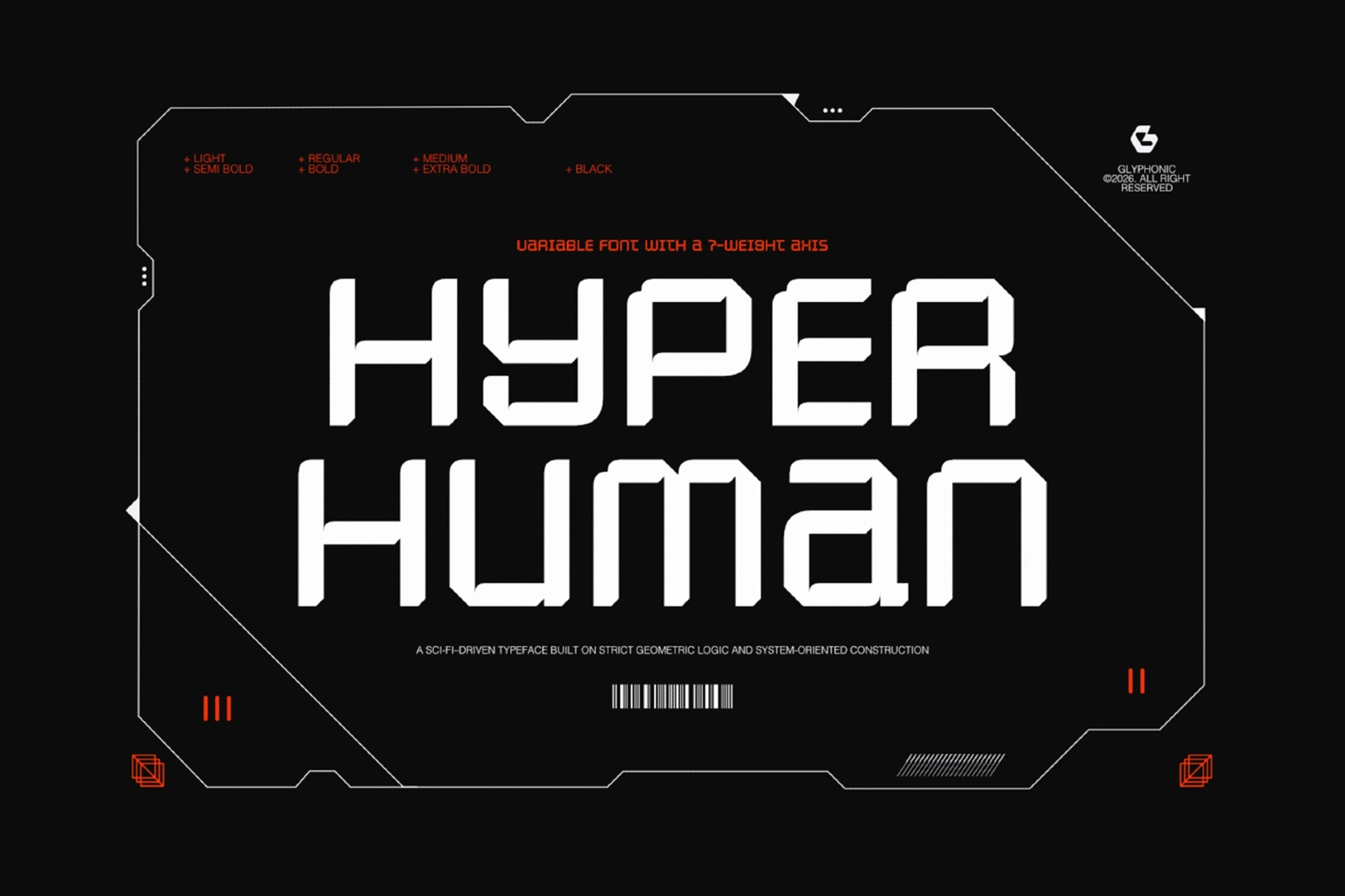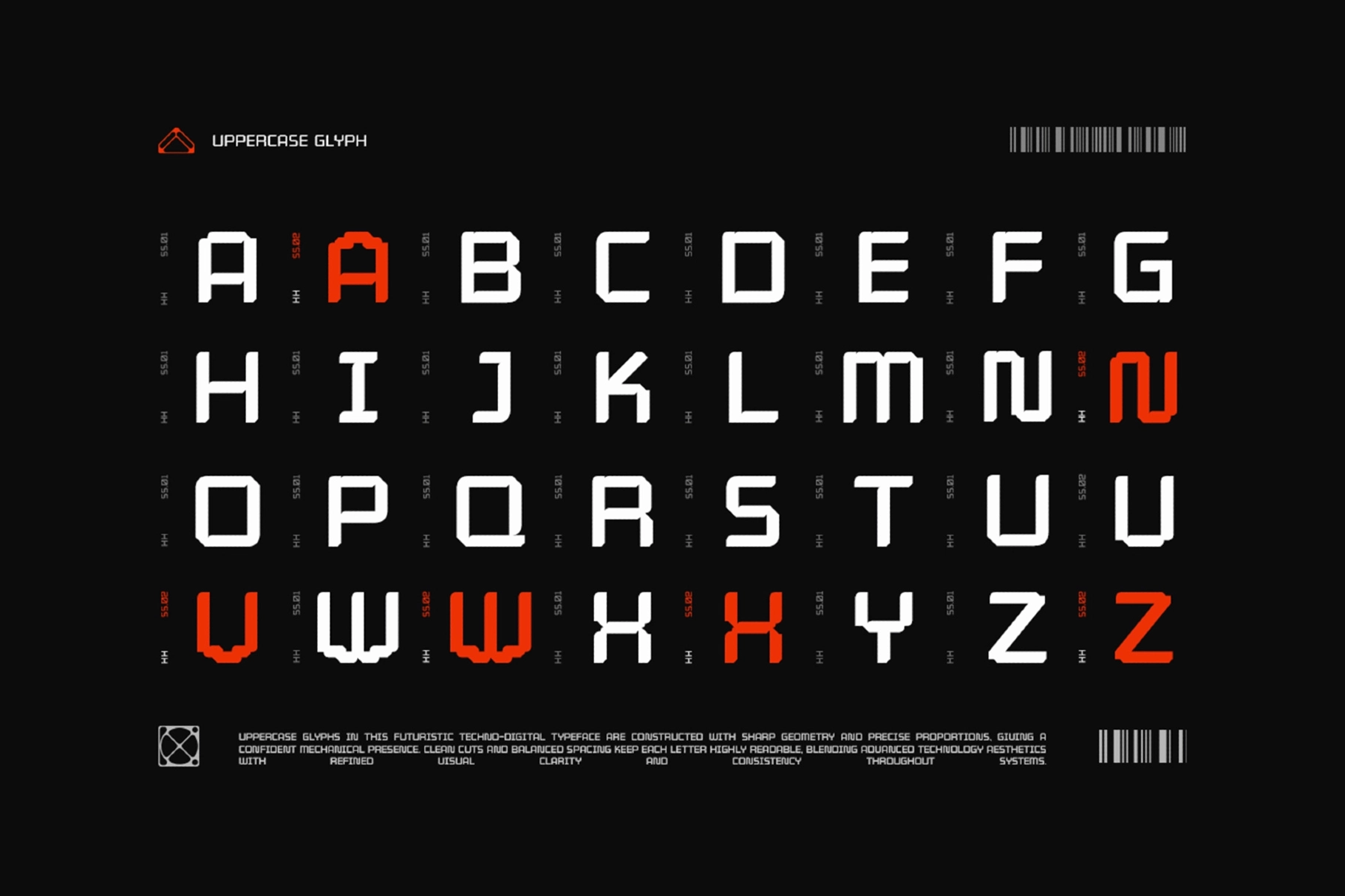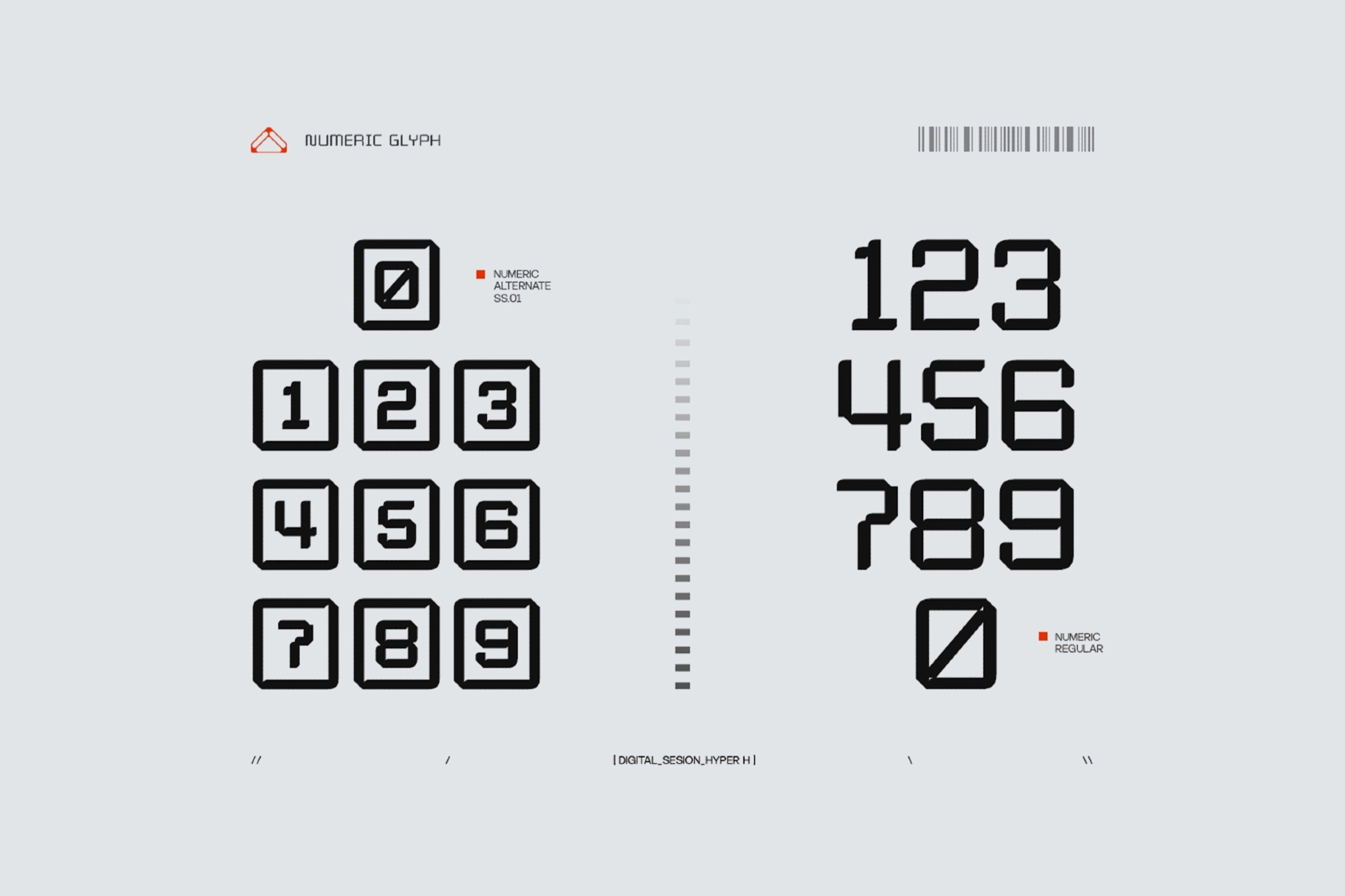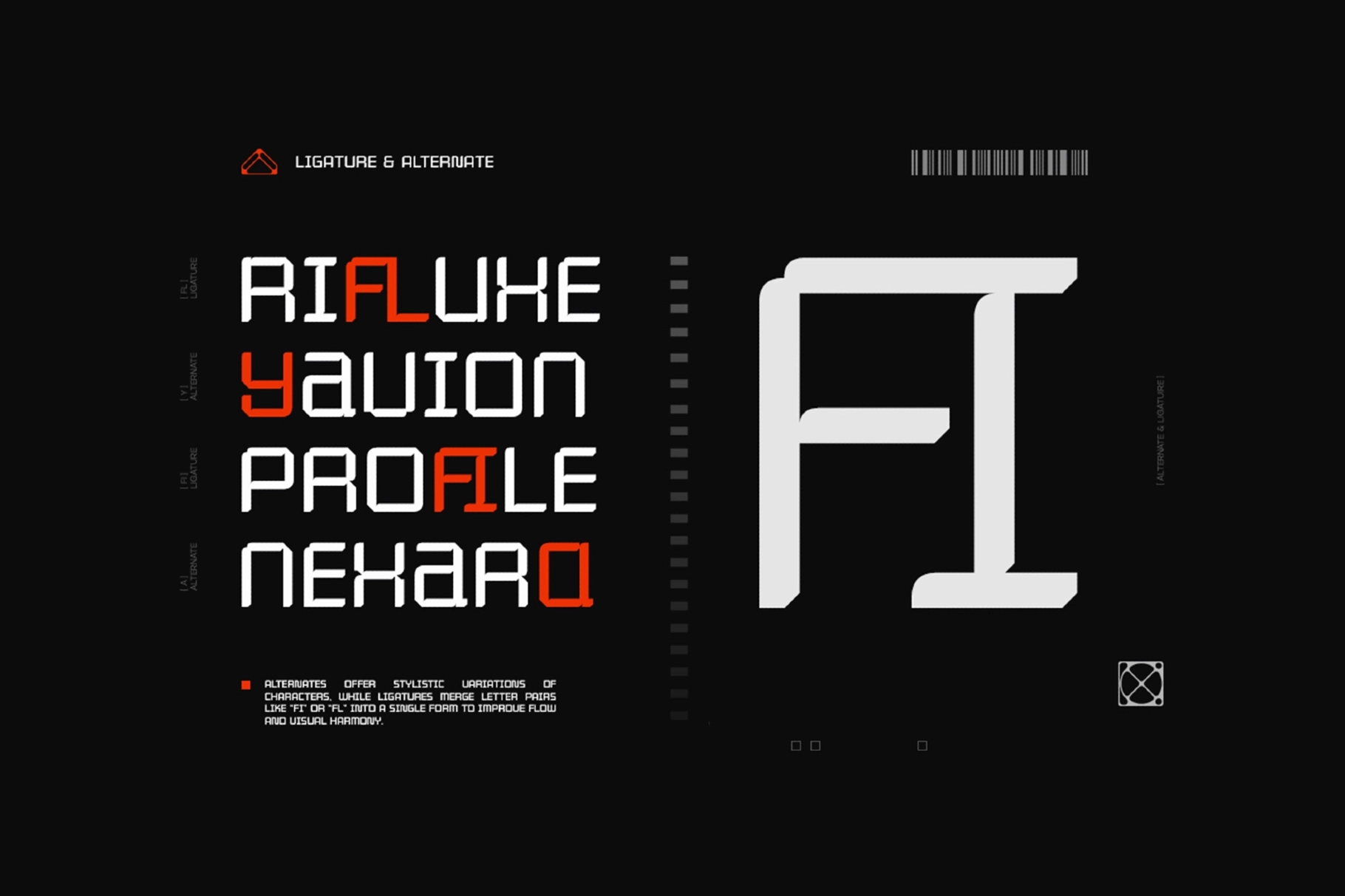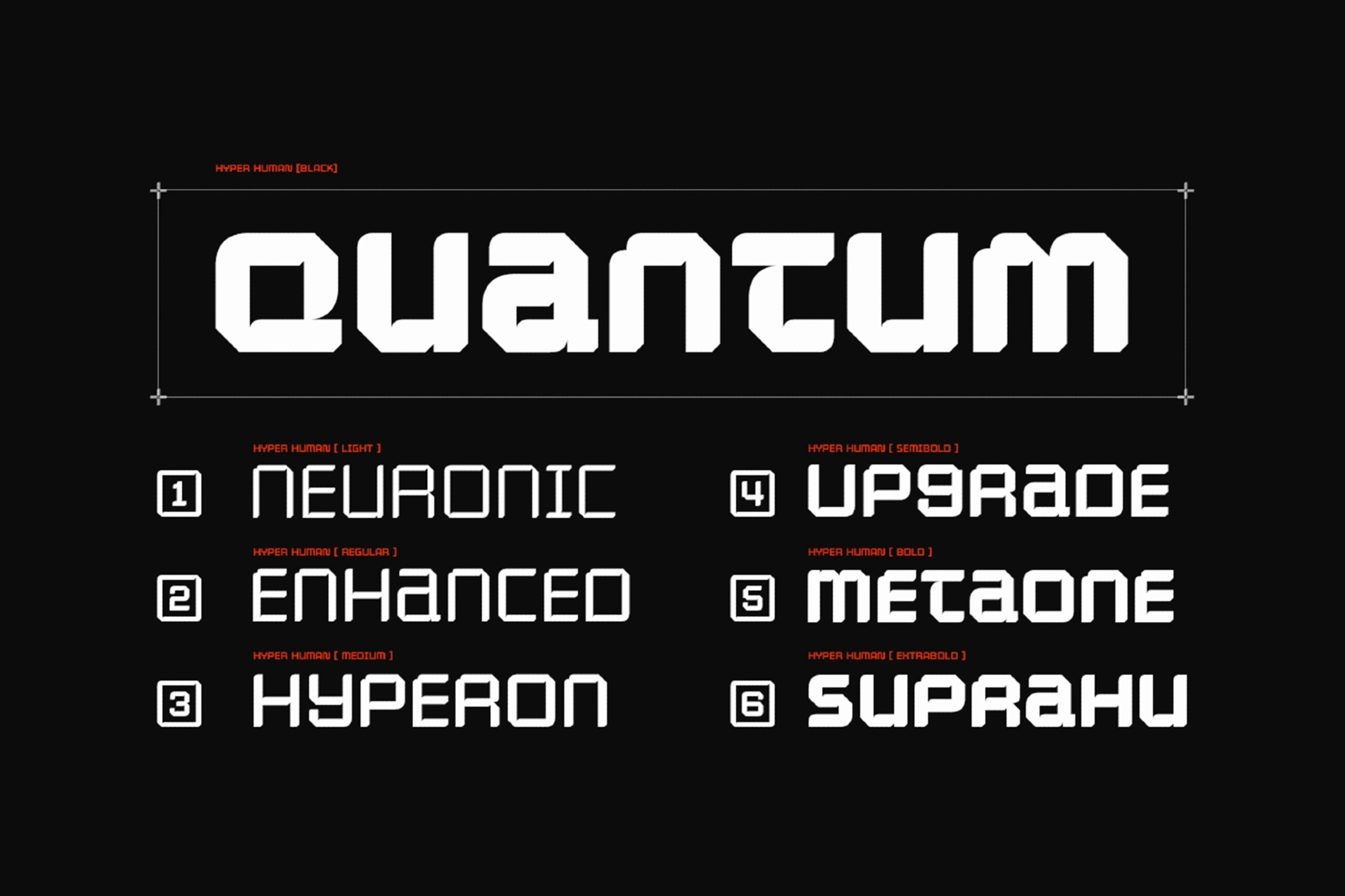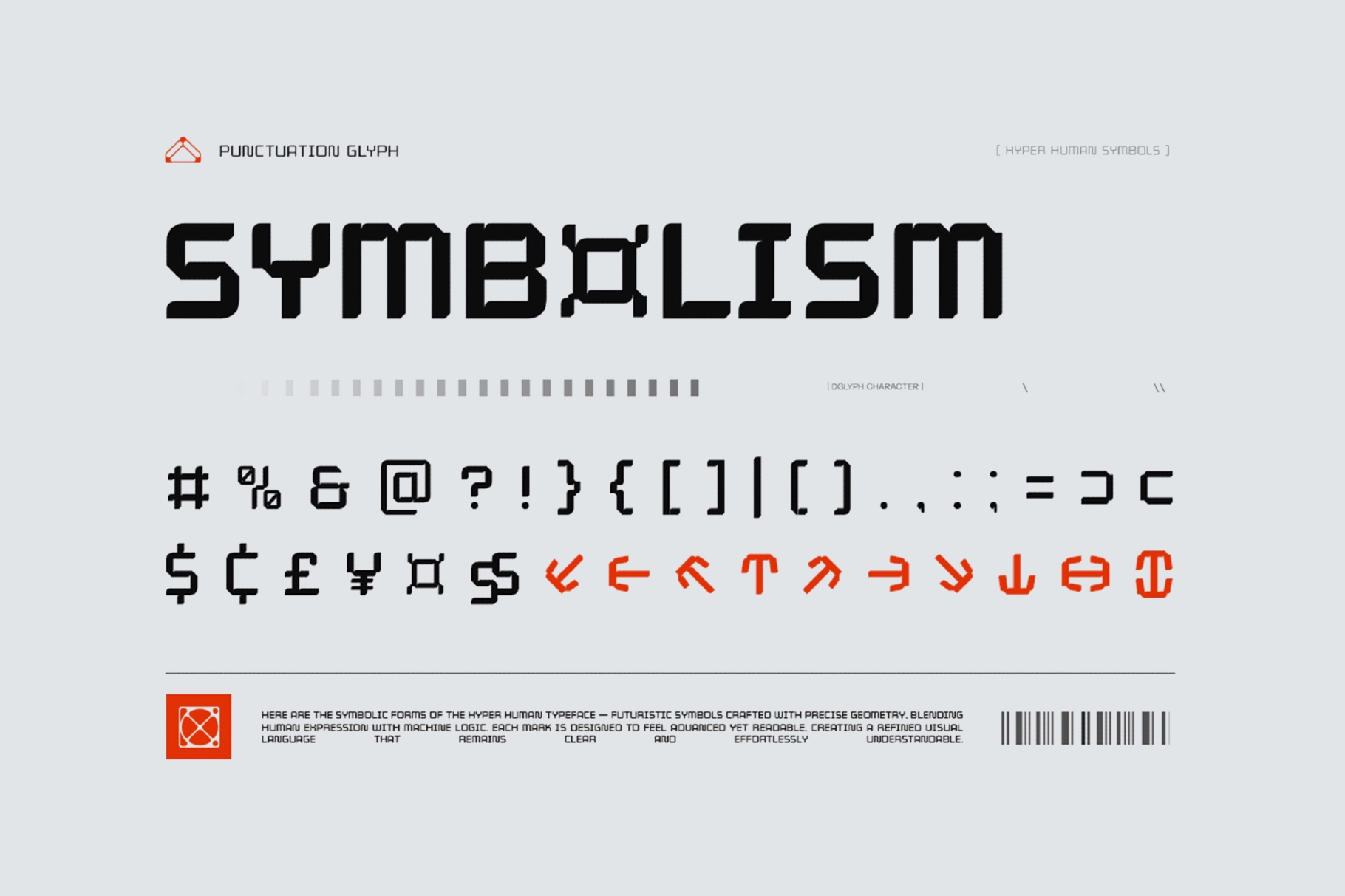
GC Hyper Human – Futuristic Tech Sans Font
GC Hyper Human is a futuristic sans built from sharp, chamfered geometry — its uppercase forms cut diagonal corners into every counter, and a custom set of directional glyph-icons stands in for the usual symbol row. A single weight axis runs from 300 to 900, holding that HUD-panel precision across the full range and landing on seven named stops from Light to Black.
The construction reads best in tech and gaming interfaces, sci-fi branding, esports logos, and motion-graphics titles, where the stylistic alternates for Y, A, and the slashed-zero numeral add a coded, terminal-readout edge. Ligatures for fi and fl keep tight letter pairs from crowding in dense headline settings.
• Variable font with a 300–900 weight axis, plus 7 static instances: Light, Regular, Medium, SemiBold, Bold, ExtraBold, and Black;
• Uppercase & lowercase;
• Numerals, punctuation & symbols, plus a custom directional glyph set;
• Stylistic alternates and a slashed-zero numeral alternate;
• Ligatures;